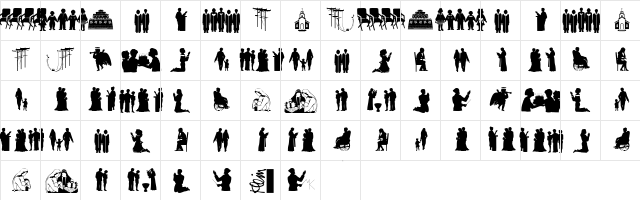
SomeSilhous Regular
Design Context for SomeSilhous Typeface
SomeSilhous is a composed and adaptable typeface that performs quietly and consistently across a wide range of design contexts.